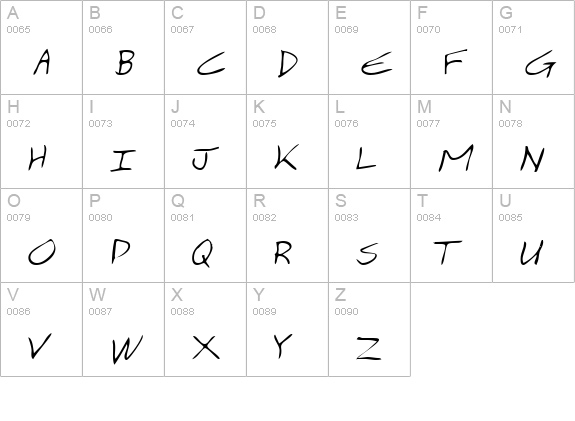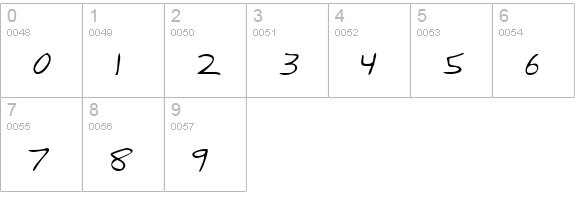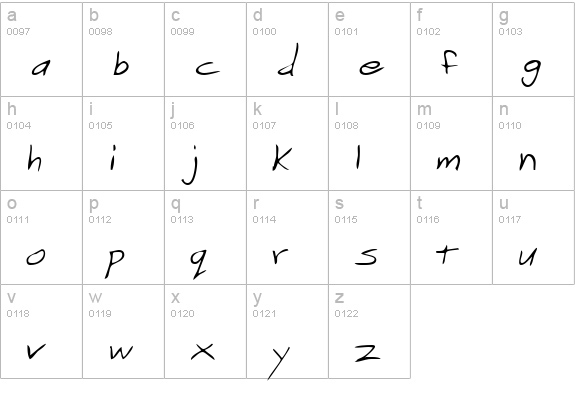
ZonkersHand Regular Font Details
ZonkersHand Regular is the standard, neutral variant in the ZonkersHand typeface family \xE2\x80\x94 well suited to general body text, paragraphs, and standard typographic work.
ZonkersHand Regular font is a charming and playful typeface that adds a touch of whimsy to any design project. With its quirky and hand-drawn style, this font is perfect for creating eye-catching headlines, greeting cards, invitations, and more. The flowing strokes and unique letterforms give ZonkersHand Regular a friendly and approachable feel. Best of all, ZonkersHand Regular font is available for free download at FontsMarket.com, making it accessible to all designers and creatives looking to add a fun and expressive touch to their work. Whether you're designing for print or web, ZonkersHand Regular is sure to bring a smile to your audience's face. Download this delightful font today and let your creativity run wild!